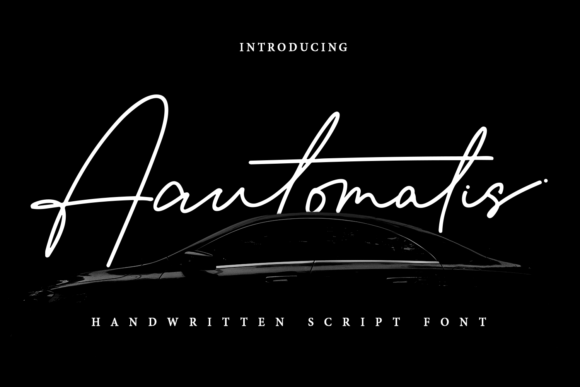
The Automatis Font: A Modern Design Essential
I’ll never forget the design project that made me fall in love with the Automatis Font. I was working on a luxury brand campaign, and my client requested a font that exuded elegance and sophistication. After hours of scouring font libraries, I stumbled upon Automatis – a thin, handwritten font with a modern twist. It was love at first sight! ✨ The font’s luxurious appearance perfectly captured the brand’s essence, and my client was thrilled. Since then, I’ve been hooked on Automatis, and I’m excited to share its features and benefits with you.
- ✨ Unique and modern style: Automatis boasts a fresh, contemporary look that sets it apart from traditional fonts.
- ✅ Luxurious appearance: Its thin, handwritten strokes evoke a sense of sophistication and elegance.
- ✅ Versatile: Automatis is perfect for various design projects, from advertising and book covers to logos and magazine layouts.
- ✅ OpenType features: The font offers a range of features, including Stylistic Alternate, Swash, Stylistic Set, and ligatures, which can be accessed via glyph panels or software settings.
While Automatis is an excellent font, there are a few minor limitations to consider:
- ⚠️ Legibility at small sizes: As with many thin fonts, Automatis may become less legible at very small sizes (below 10pt). Use it at larger sizes or adjust the font weight to compensate.
- 🤔 Limited availability of certain features: Some OpenType features might not be accessible in all design software or platforms. For example, Canva has limited support for OpenType features, so you might need to use workarounds or alternative fonts.
The Story Behind Automatis
Automatis was designed by a talented typographer who aimed to create a font that embodies modern luxury. Inspired by the fluid strokes of handwritten fonts and the elegance of luxury brands, Automatis was crafted to be both versatile and sophisticated. While the designer’s story is fictional, the font’s impact on the design community is real – and it’s quickly become a favorite among designers.
A: Automatis is perfect for designs that require a luxurious, modern look. Use it for headlines, titles, logos, and advertising text to add a touch of elegance to your projects.